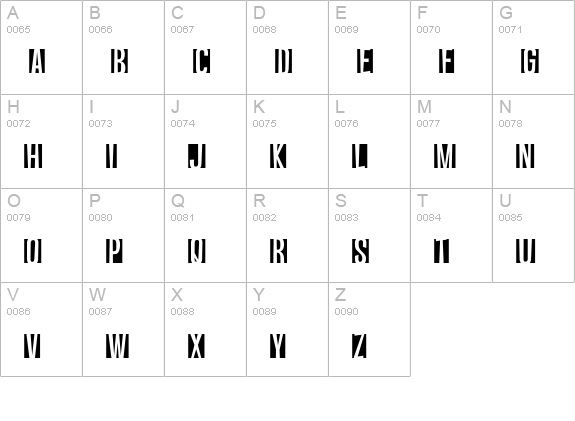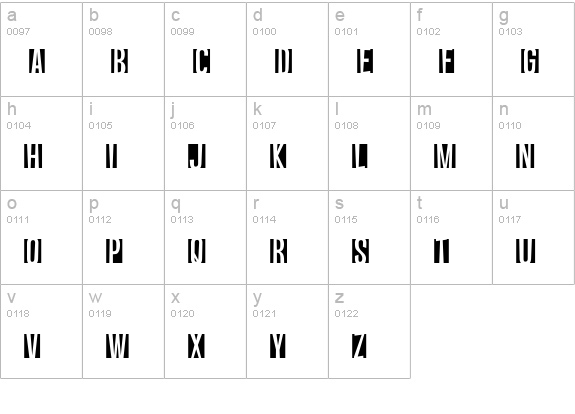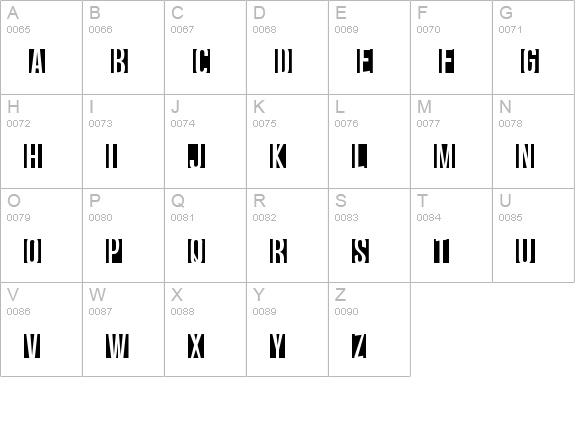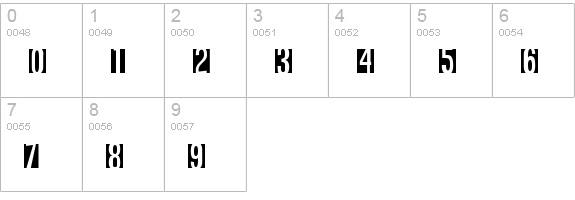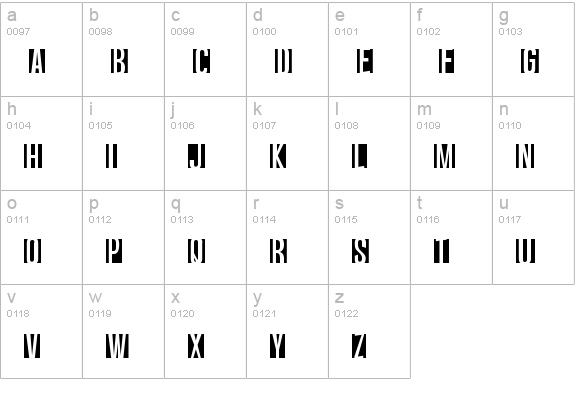
Introducing Vanishing Boy BTN Reversed font, a unique and captivating typeface that will add a touch of mystery and intrigue to your design projects. This font is the perfect choice for those seeking to create a visually stunning and enigmatic atmosphere. Vanishing Boy BTN Reversed font features a striking reverse design, with each letter appearing to fade away into the background. This effect gives the font a mesmerizing and ethereal quality, making it ideal for various creative applications such as posters, album covers, book covers, and more. The elegance and sophistication of Vanishing Boy BTN Reversed font make it suitable for both personal and commercial projects. Whether you're designing a cutting-edge logo or a thought-provoking editorial layout, this font will effortlessly elevate your designs to new heights. What sets Vanishing Boy BTN Reversed font apart is its versatility. Its unique reverse style can be used as a standalone typeface or combined with other fonts to create eye-catching typographic compositions. The possibilities are endless, allowing you to unleash your creativity and bring your ideas to life. Best of all, Vanishing Boy BTN Reversed font is available for free download at FontsMarket.com. This means that you can easily access and use this striking typeface without any limitations or restrictions. So why wait? Download Vanishing Boy BTN Reversed font today and embark on a journey of visual storytelling like never before.